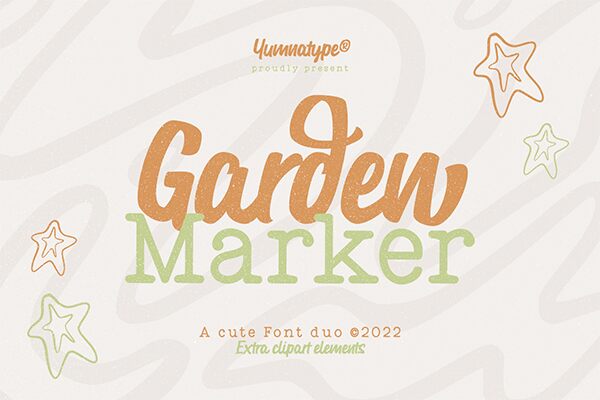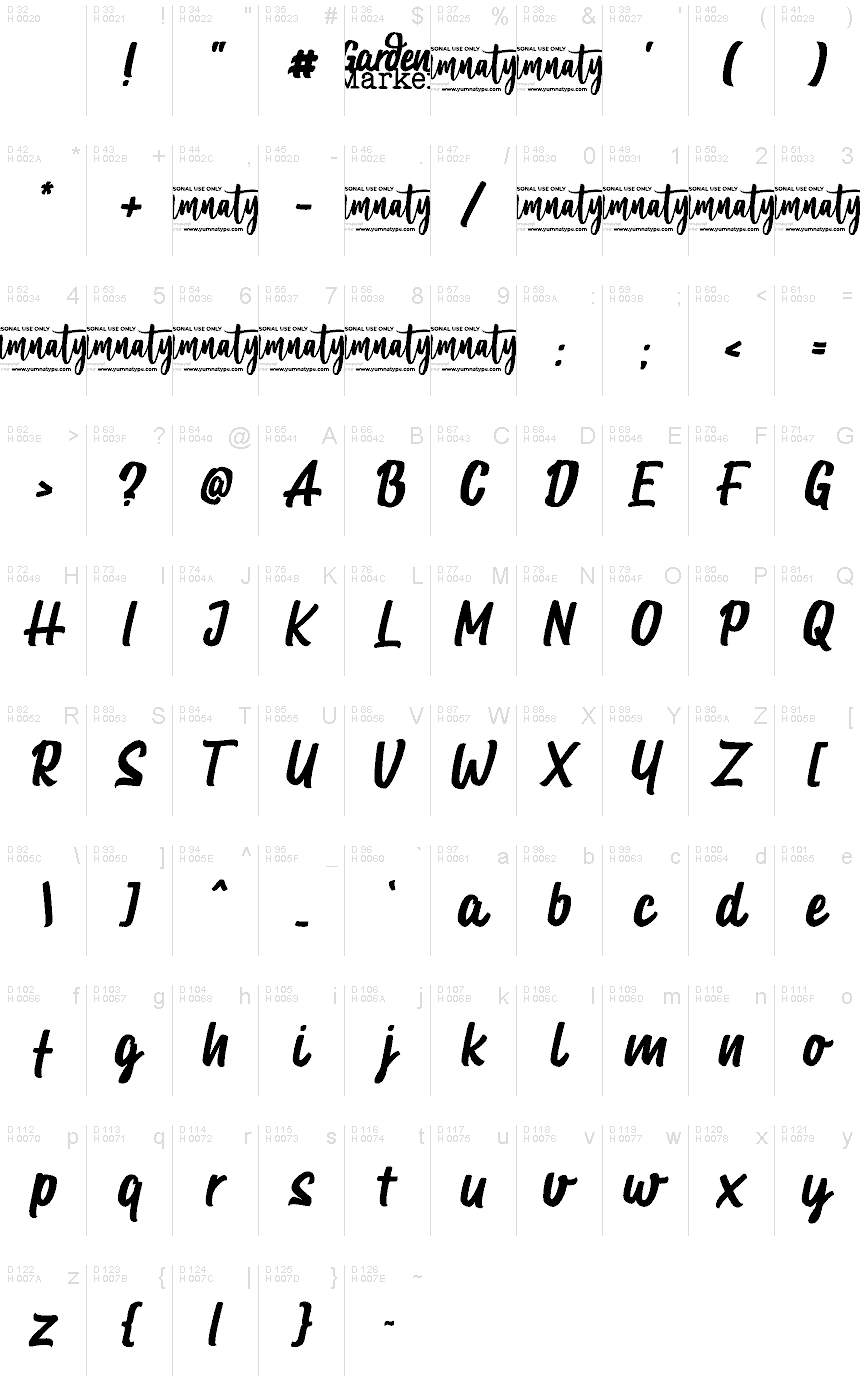
Garden marker Personal Use
Garden Marker font designed by Yumna Family is an expressive brush typeface with a flowing, casual elegance. Its modern script style conveys an approachable and friendly atmosphere, ideal for projects seeking a warm, personal touch.